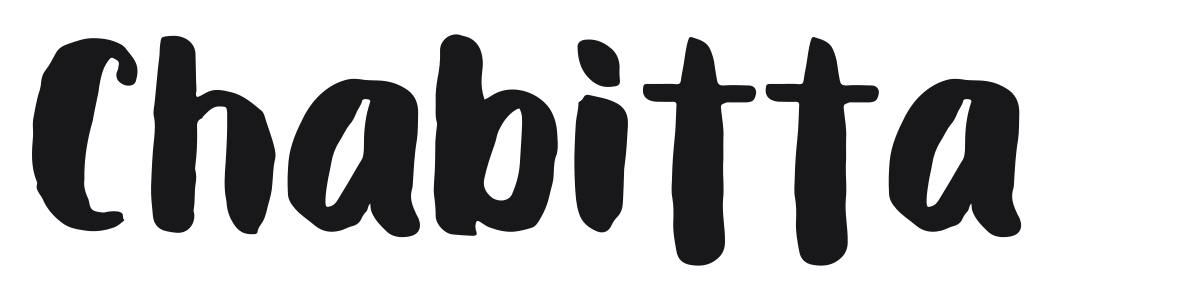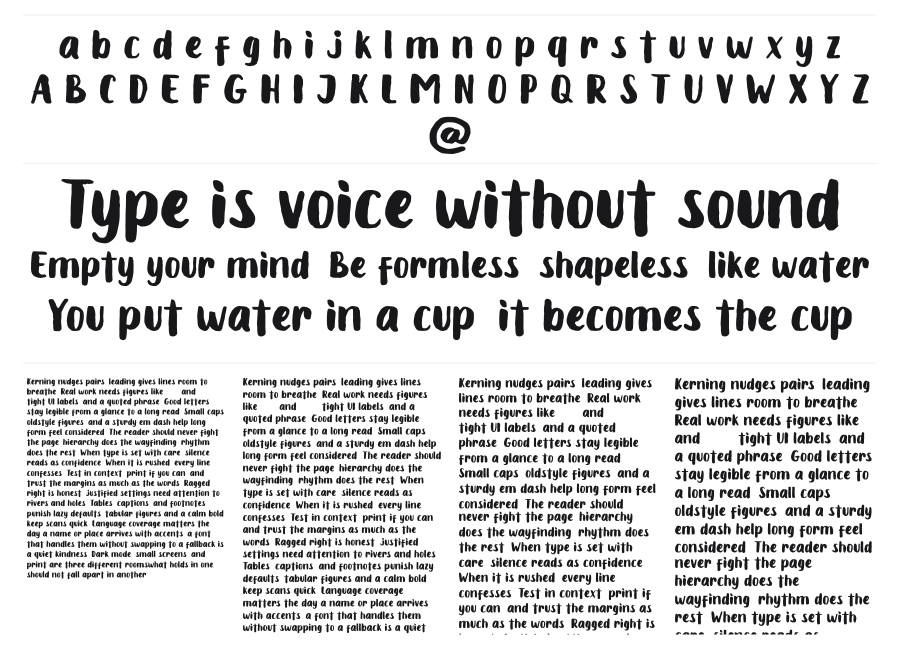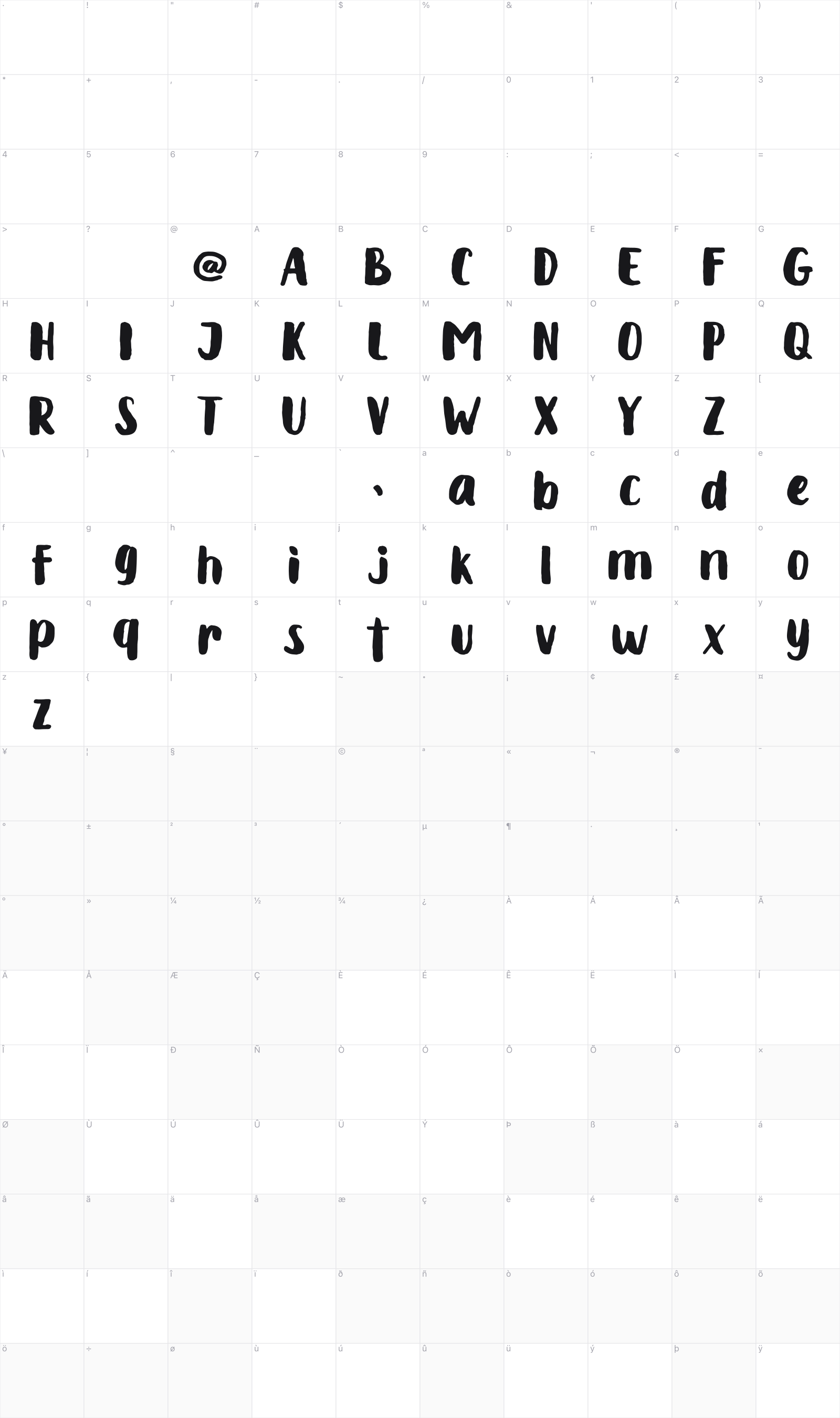
Chabitta
Chabitta is a bold brush face from Typefar with thick, expressive strokes that carry the loose energy of a wide marker moving fast. The letterforms stay playful and casual without losing their shape, giving it a handmade warmth that works for headlines, packaging, and display use where you want something that feels energetic and off-the-cuff.